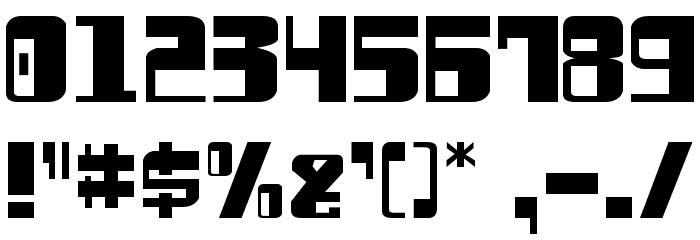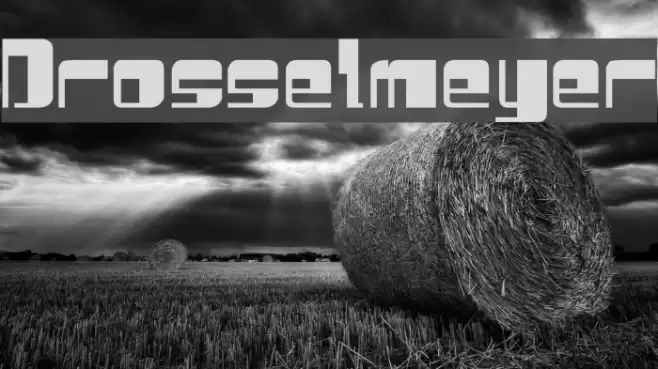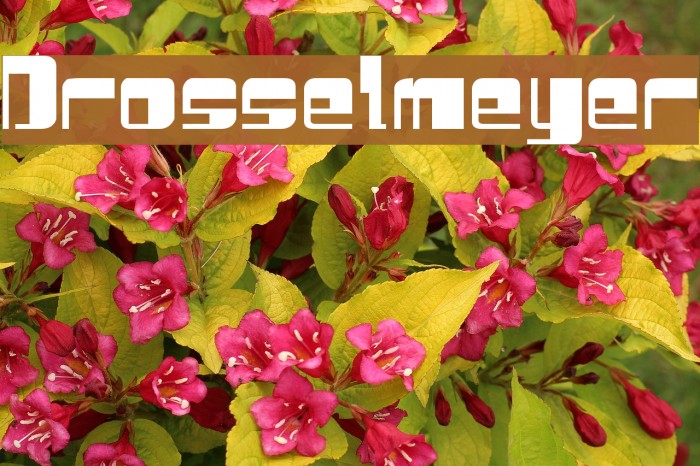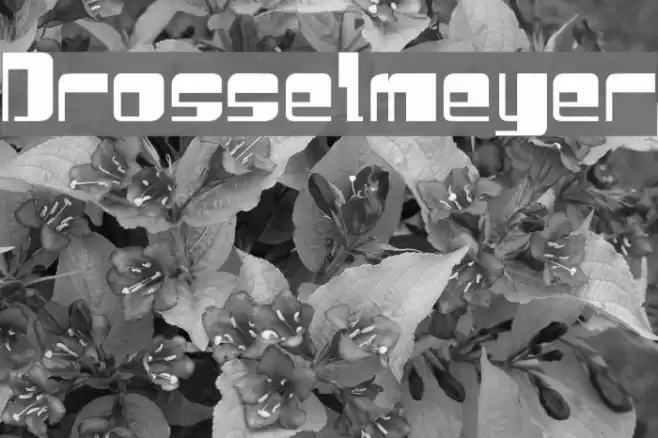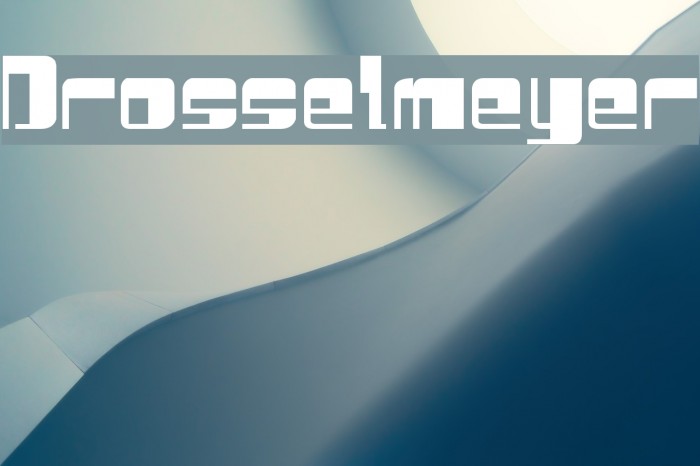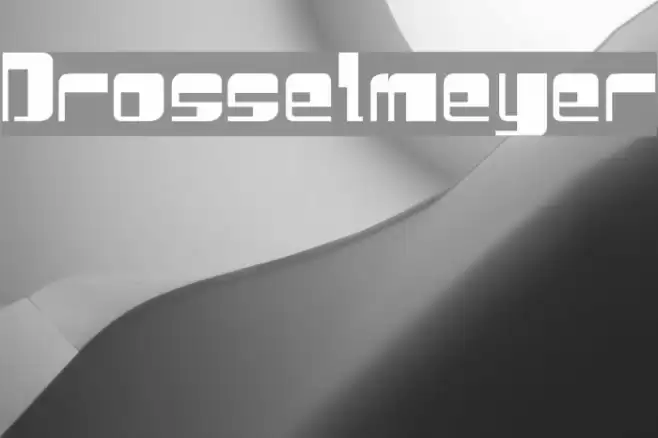
Drosselmeyer Font
Drosselmeyer Description
This font features a bold and geometric design with a modern flair. The characters are constructed with sharp angles and straight lines, creating a futuristic and industrial look. The uppercase letters have a blocky appearance, while the lowercase letters maintain a consistent style with slightly softer edges. Numbers and special characters follow the same design principles, ensuring uniformity across the typeface. The font's unique style makes it stand out, with a strong presence that commands attention. Its high contrast and solid structure make it suitable for impactful visual statements.
| Proposed Projects | Ideal for branding, posters, headlines, and any project requiring a strong, modern visual impact. |